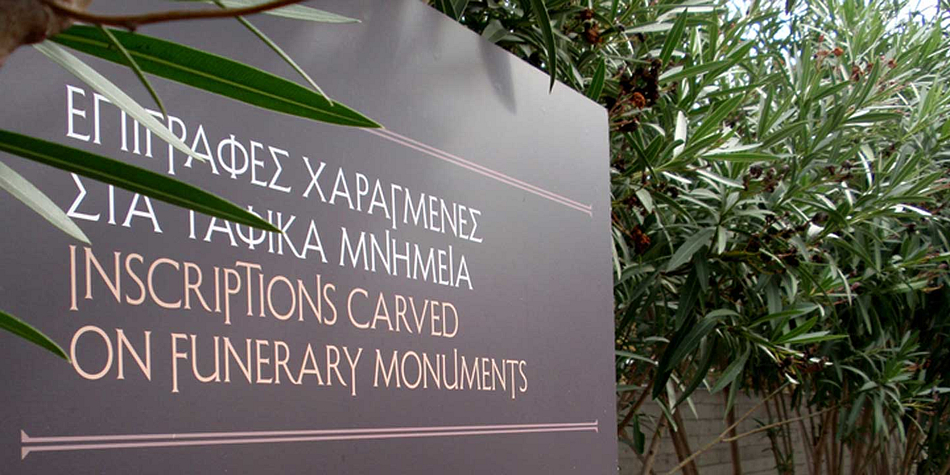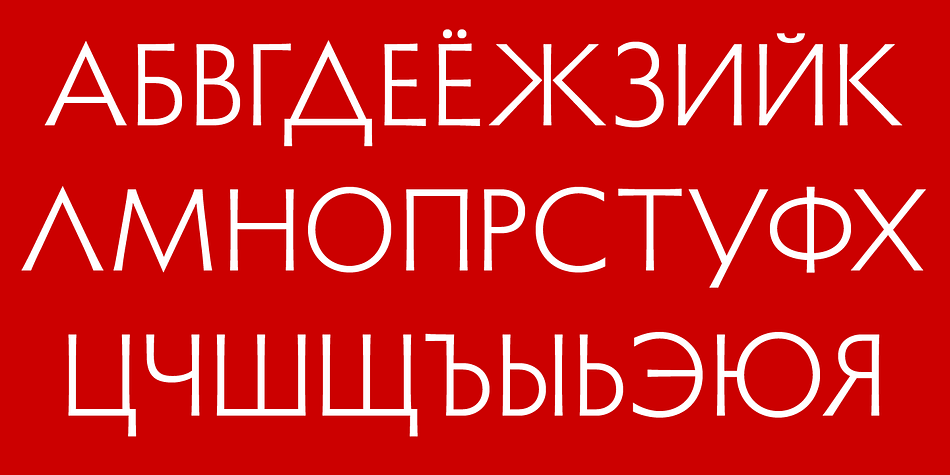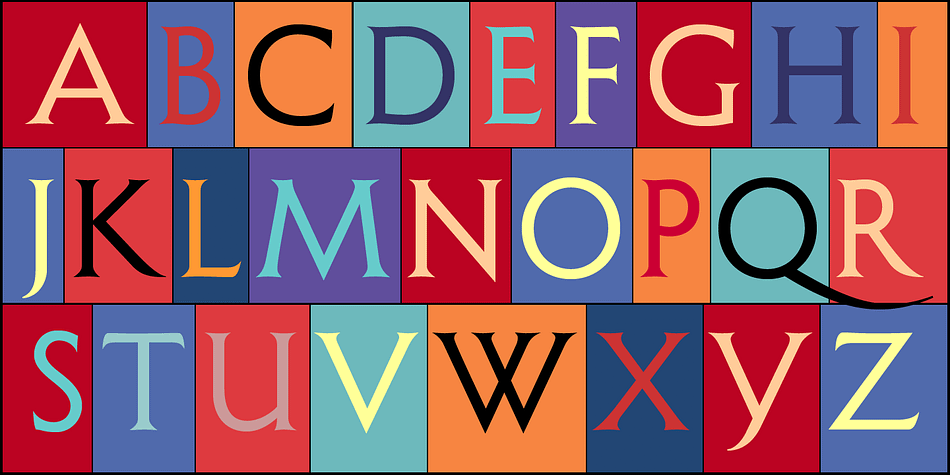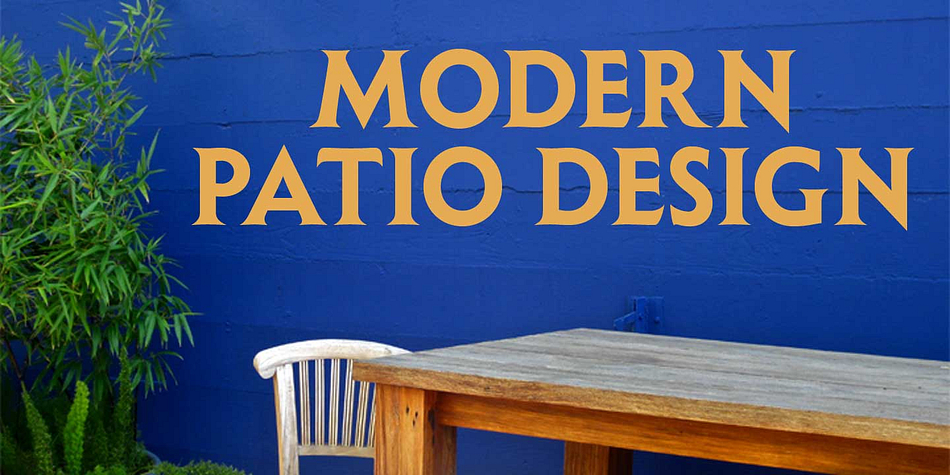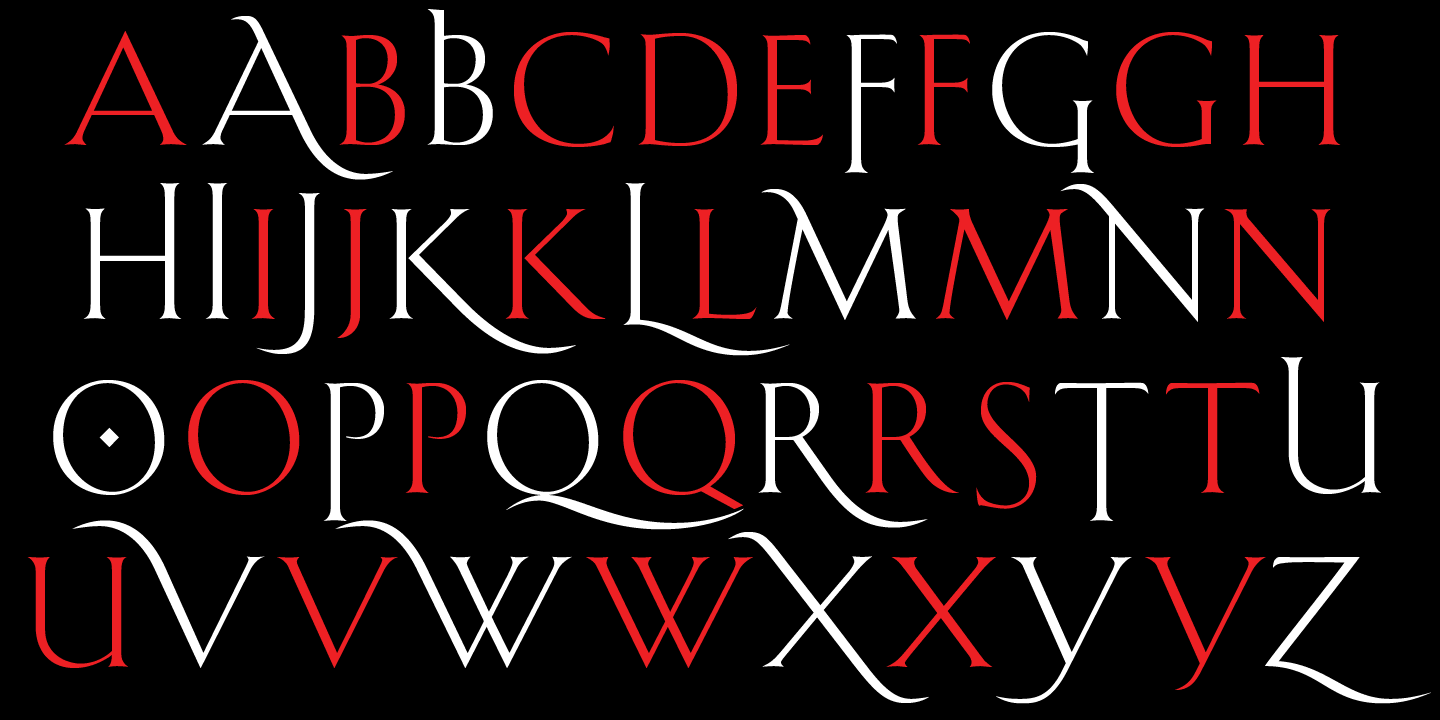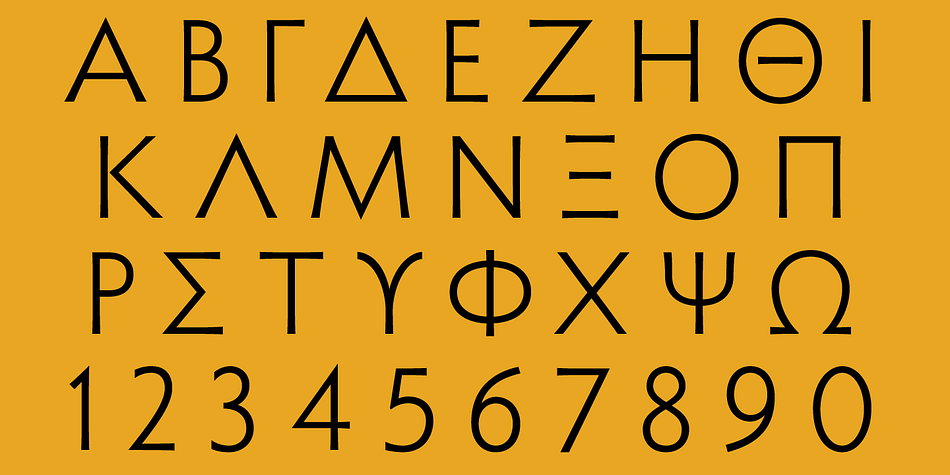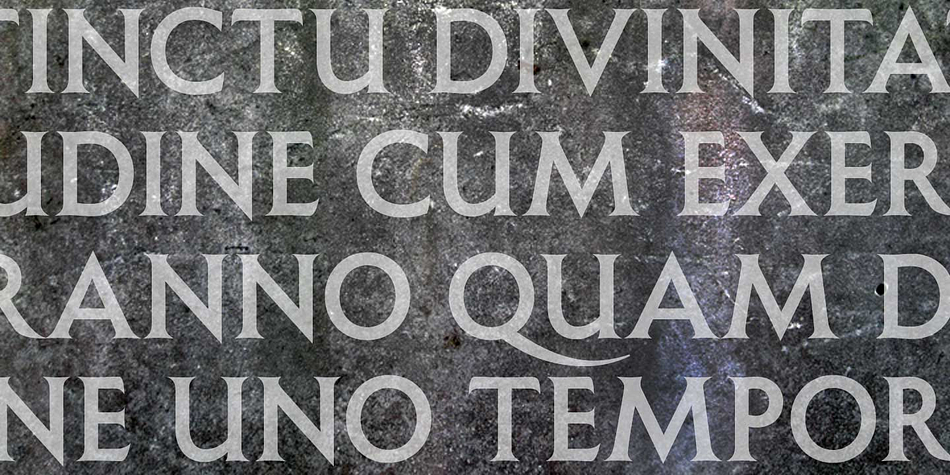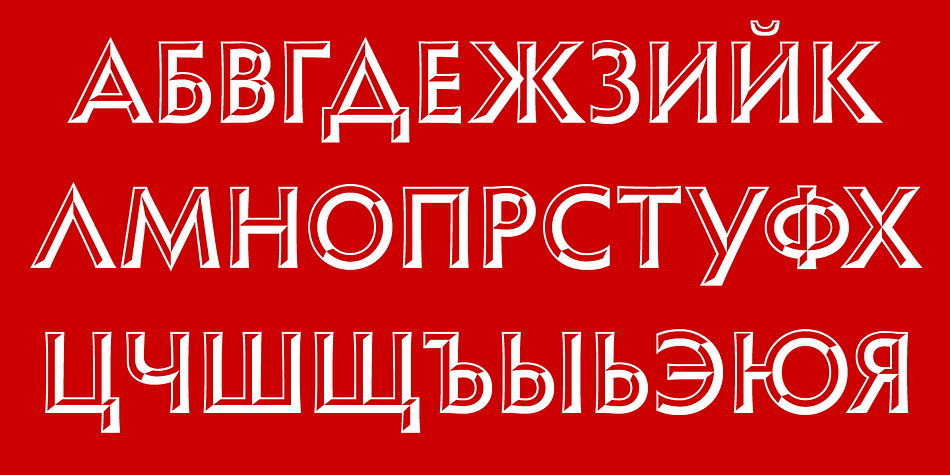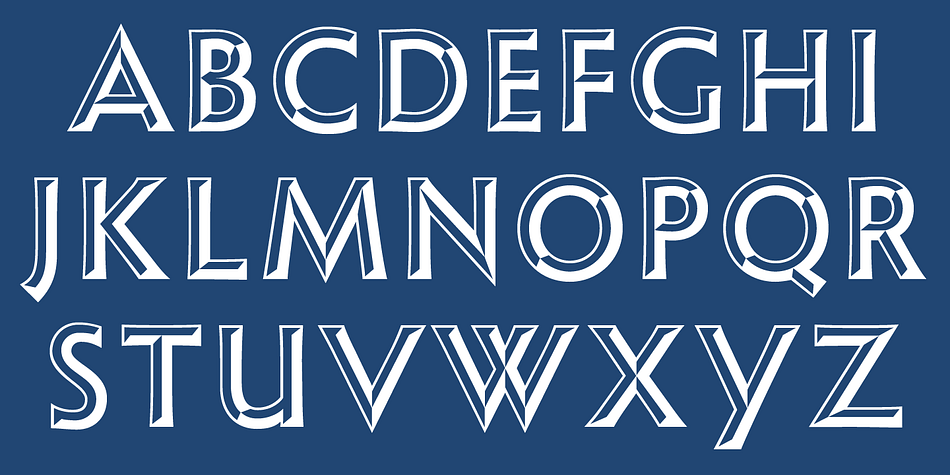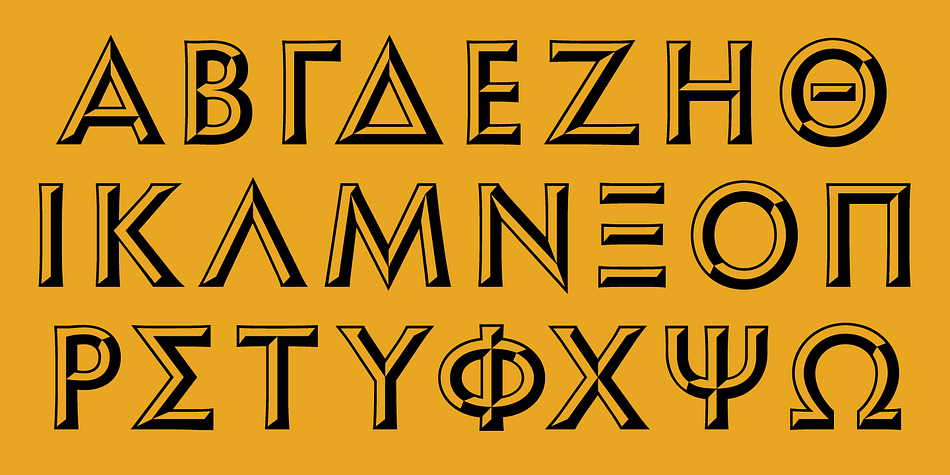
Shàngó is a 9-member display type super-family, inspired by the eponymous classic font by Professor F.H. Ernst Schneidler.
Shàngó™, inspired by Professor F.H. Ernst Schneidler’s classic titling typeface released in 1936 as ‘Schneidler-Mediaeval mit Initialen’, is an elegant design that looks best when used at large sizes, as the original name suggests. The Shàngó family extends the original design, and is available in four styles: Shàngó Classic (shown here), Shàngó Gothic, Shàngó Chiseled, and Shàngó Sans. All styles support dozens of languages that use the Latin alphabet as well as modern (monotonic) Greek and most languages that use the Cyrillic alphabet.